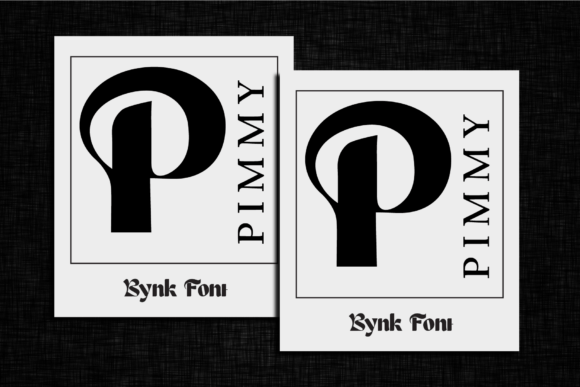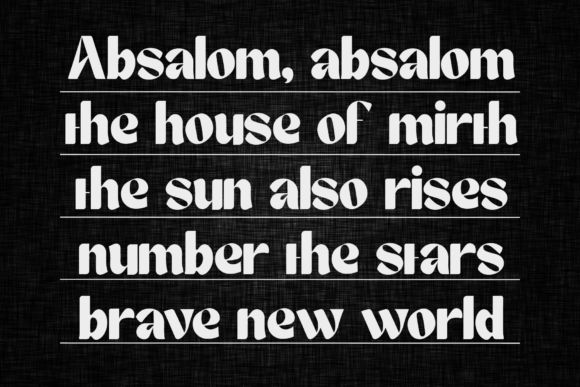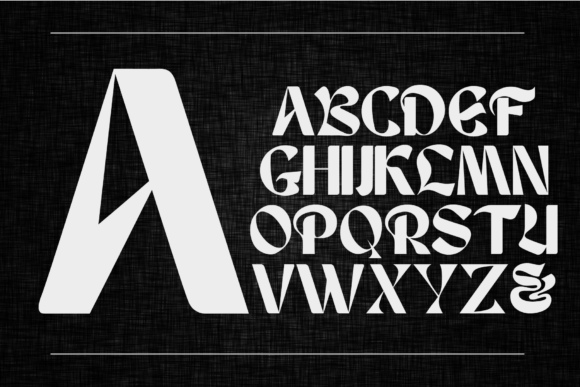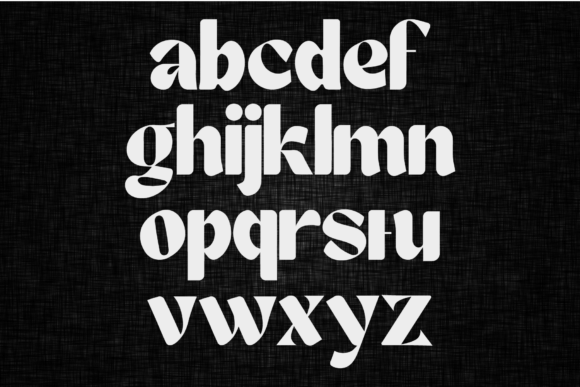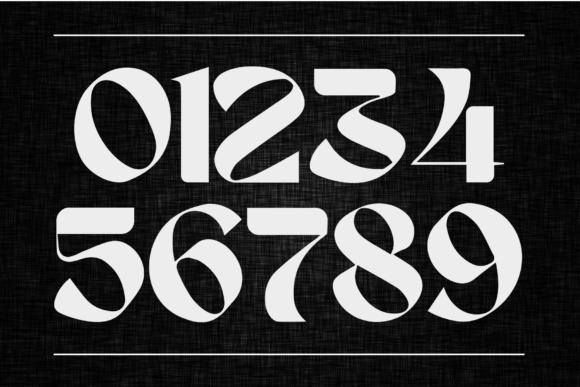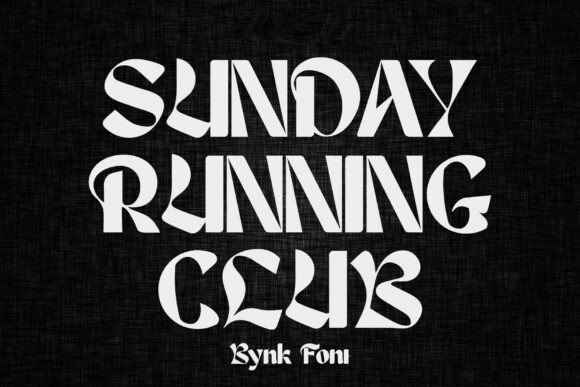
The Perfect Font for the Unconventional Creative
Have you ever stared at a blank canvas, waiting for that spark of inspiration to strike? For designers, it’s a familiar feeling – the moment when anything seems possible and the only limit is our imagination. It’s in these moments that we crave a tool that can amplify our creativity, something that can transport us to a world beyond the ordinary. Enter the Bynk Experimental typeface, a mind-bending psychedelic display font that defies the norms and pushes the boundaries of visual expression.
Bynk Experimental is more than just a font – it’s an experience. With its fluid curves, distorted forms, and hypnotic rhythm, this typeface is perfect for designers who dare to be different. Whether you’re working on an experimental poster, music festival branding, or retro-futuristic visuals, the Bynk Font is the perfect companion for your creative journey.
As a designer, you’re always on the lookout for a font that can make a statement, and the Bynk Experimental font is sure to deliver. Its bold eccentricity and surreal charm make it a valuable addition to any design arsenal, allowing you to tap into your inner artist and create something truly unique.
Bynk Font Key Features
- Unique Characteristics: Bynk Font features a unique, hand-drawn design with a mix of geometric and organic elements, giving it a distinctive and eye-catching appearance.
Bynk Font Review
When I first laid eyes on Bynk Font, I was immediately drawn in by its unique blend of modernity and playfulness. The font’s ✨ geometric shapes and clean lines give it a fresh, contemporary feel that’s sure to elevate any design project. I particularly love the way the font’s bold weight adds a sense of sophistication and depth to text.
One of the standout features of Bynk Font is its excellent legibility, making it a great choice for body text and headings alike. The font’s x-height is well-proportioned, ensuring that even at smaller sizes, the text remains easy to read. Additionally, the font’s ✨ subtle flair at the terminals adds a touch of personality to the overall design.
While Bynk Font is an excellent choice for many design projects, it does have some limitations. One of the main drawbacks is its limited language support, which may be a concern for designers working on international projects. Additionally, the font’s ✨ bold weight can sometimes feel a bit overbearing, especially in larger text blocks.
In conclusion, Bynk Font is a solid choice for designers looking for a modern, playful font with excellent legibility. While it may not be perfect, its unique style and versatility make it a great addition to any design toolkit. Overall, I’d give Bynk Font 4 out of 5 stars.
Key Features
- ✨ Modern, geometric design
- Excellent legibility
- ✨ Bold weight adds sophistication and depth
- Limited language support
- ✨ Bold weight can feel overbearing at times
Bynk Font is ideal for:
- Headings and titles
- Logos and branding
- Emphasis and highlighting
For optimal results, use Bynk Font in conjunction with a clean and minimal design aesthetic.